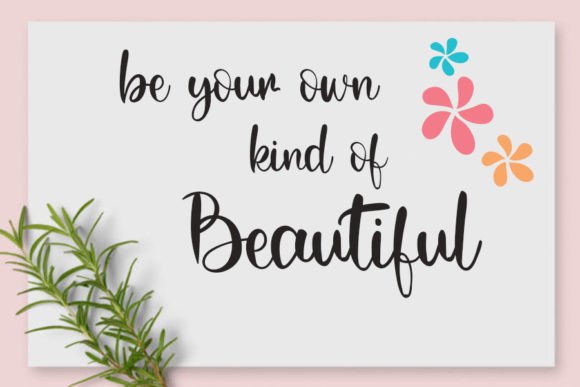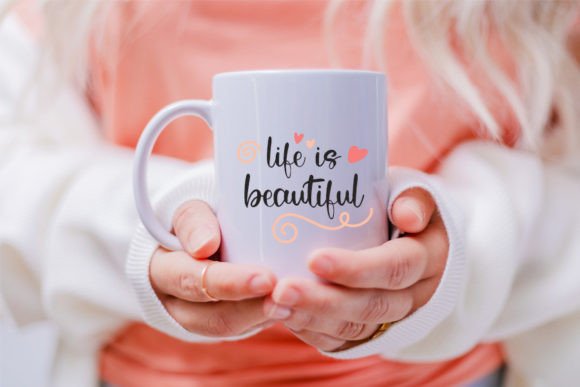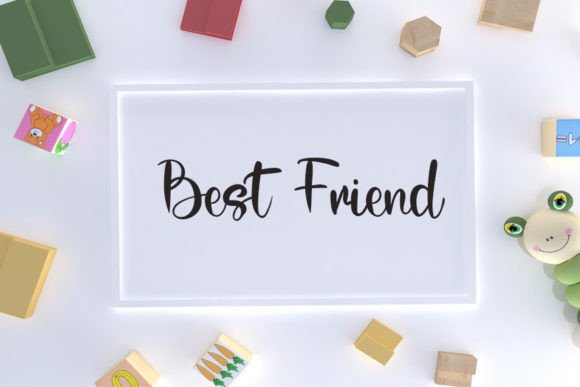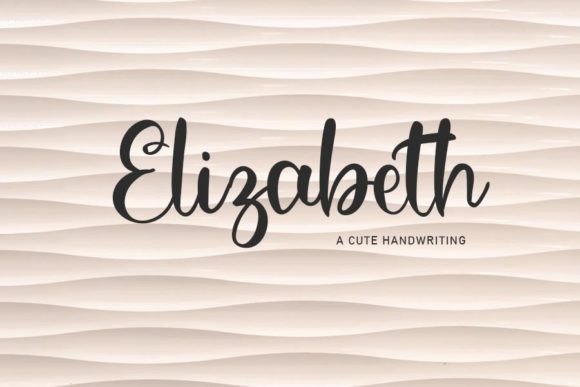
Introducing Elizabeth Font: The Perfect Addition to Your Design Arsenal
Are you a designer or crafter looking for a font that can add a touch of elegance and romance to your creations? Look no further than Elizabeth Font. This stylish handwritten font is suitable for a wide range of applications, from greeting cards to headlines, and is sure to become a staple in your design toolkit.
The Charm of Elizabeth Font
Elizabeth Font is a beautifully crafted handwritten font that exudes a sense of sophistication and charm. Its elegant strokes and delicate curves make it perfect for adding a romantic touch to any design project. Whether you’re creating a wedding invitation, a greeting card, or a blog post, Elizabeth Font is sure to impress.
One of the best things about Elizabeth Font is its versatility. It’s suitable for a wide range of applications, including:
- Greeting cards: Add a personal touch to your greeting cards with Elizabeth Font’s elegant script.
- Headlines: Make your headlines stand out with Elizabeth Font’s bold and stylish letters.
- Wedding invitations: Add a touch of romance to your wedding invitations with Elizabeth Font’s delicate curves.
- Blog posts: Use Elizabeth Font to add a personal touch to your blog posts and make them more engaging.
- Social media graphics: Create eye-catching social media graphics with Elizabeth Font’s stylish letters.
Why Choose Elizabeth Font?
So, why choose Elizabeth Font over other fonts? Here are just a few reasons:
- Unique and stylish: Elizabeth Font is a one-of-a-kind font that’s sure to make your designs stand out.
- Elegant and sophisticated: Elizabeth Font’s elegant strokes and delicate curves make it perfect for adding a touch of sophistication to your designs.
- Easy to read: Despite its elegant appearance, Elizabeth Font is easy to read and understand.
- High-quality: Elizabeth Font is a high-quality font that’s designed to produce crisp and clear results.
Tips for Using Elizabeth Font
Here are a few tips for getting the most out of Elizabeth Font:
- Use it sparingly: Elizabeth Font is a bold and stylish font, so use it sparingly to avoid overwhelming your design.
- Pair it with other fonts: Elizabeth Font pairs well with other fonts, so don’t be afraid to experiment with different combinations.
- Adjust the size: Adjust the size of Elizabeth Font to create visual interest and add emphasis to certain parts of your design.
- Experiment with colors: Elizabeth Font looks great in a variety of colors, so don’t be afraid to experiment and find the perfect color for your design.
In conclusion, Elizabeth Font is a stylish and versatile handwritten font that’s perfect for adding a touch of elegance and romance to your design projects. Its unique and sophisticated appearance makes it suitable for a wide range of applications, from greeting cards to headlines. With its high-quality design and ease of use, Elizabeth Font is sure to become a staple in your design toolkit.
Get Creative with Elizabeth Font
So, what are you waiting for? Get creative with Elizabeth Font and see the difference it can make in your designs. Whether you’re a professional designer or a crafty hobbyist, Elizabeth Font is sure to inspire you to create something beautiful.